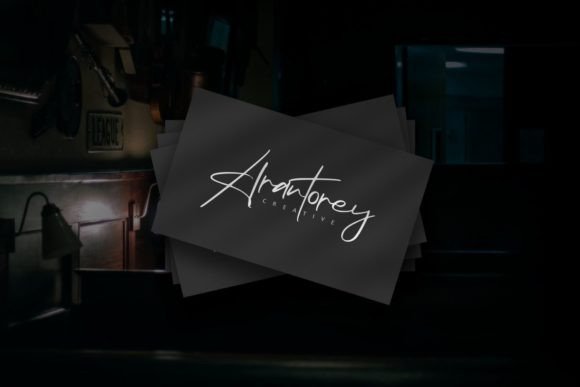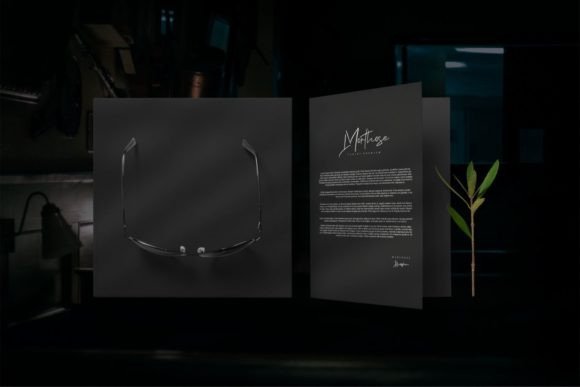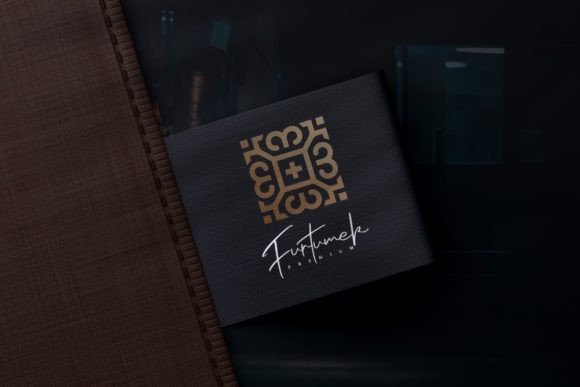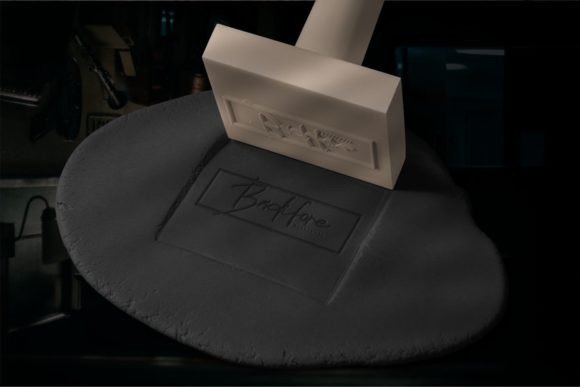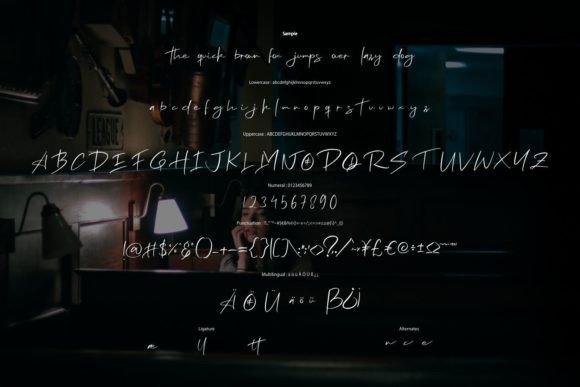
The Designer’s Delight: Emillisin Font
I’ll never forget the time I was working on a wedding invitation project, and my client asked for a font that would make their special day feel like a fairytale. I scoured the internet, tried countless fonts, but nothing seemed quite right. That was until I stumbled upon Emillisin – a modern script font with a beautiful calligraphy style that instantly captured the elegance and romance of the occasion.
Emillisin is a stunning script font that can elevate any design project, from invitations and greeting cards to branding materials, business cards, quotes, posters, and more! In this article, I’ll share my experience with Emillisin, its features, and how to make the most of this gorgeous font.
An Honest Review of Emillisin
What I Love About Emillisin ✨
- 💫 Beautifully crafted calligraphy style with a modern twist
- 🎨 Versatile and suitable for a wide range of design projects
- 🤩 Easy to use and pairs well with various font combinations
While Emillisin is an exceptional font, there are a few minor quirks to be aware of:
- 🤔 Some users may find the font a bit too ornate for very short texts or headings
- ⚠️ Limited availability of certain OpenType features in certain software
The Story Behind Emillisin
Emillisin was designed with the intention of creating a beautiful, modern script font that captures the essence of calligraphy. The designer aimed to craft a font that would be both elegant and legible, making it perfect for a wide range of design projects.
Q: What makes Emillisin unique?
A: Emillisin’s unique blend of modern style and calligraphy-inspired elegance sets it apart from other script fonts.